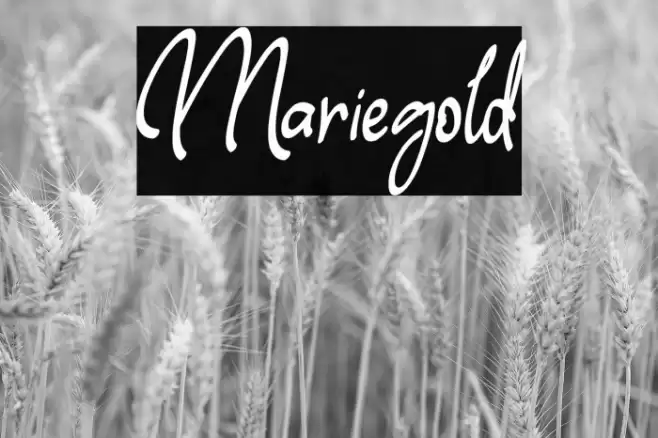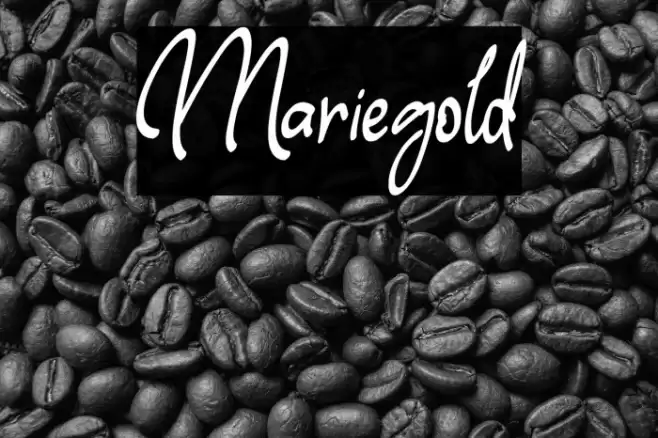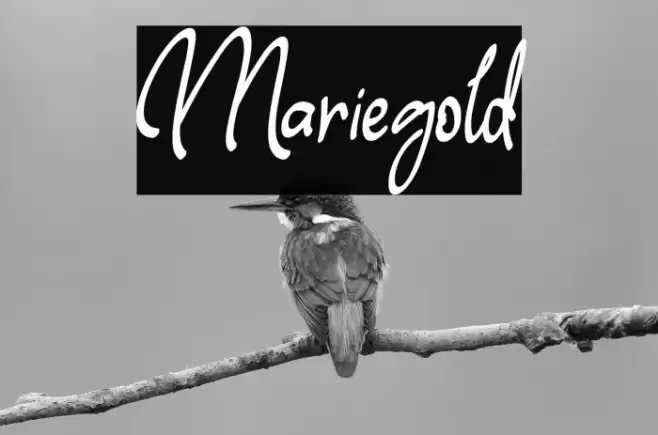
Mariegold Font
Mariegold Description
This font features an elegant and flowing script style, characterized by its smooth, cursive strokes and a sense of fluidity. The uppercase letters are particularly ornate, with sweeping lines and a sense of movement that suggests a handwritten quality. The lowercase letters maintain this fluidity but are slightly more restrained, providing a nice balance. The numerals are consistent with the overall style, offering a cohesive look. This font exudes a sense of sophistication and grace, making it suitable for formal invitations, branding, or any project that requires a touch of elegance.
An elegant, flowing script font with a sophisticated, handwritten style from Regular fonts.
- Proposed Projects: Ideal for wedding invitations, luxury branding, elegant stationery, and high-end product packaging.
- Overall Style: Elegant, Sophisticated
- Use Case: Logos, Invitations, Branding